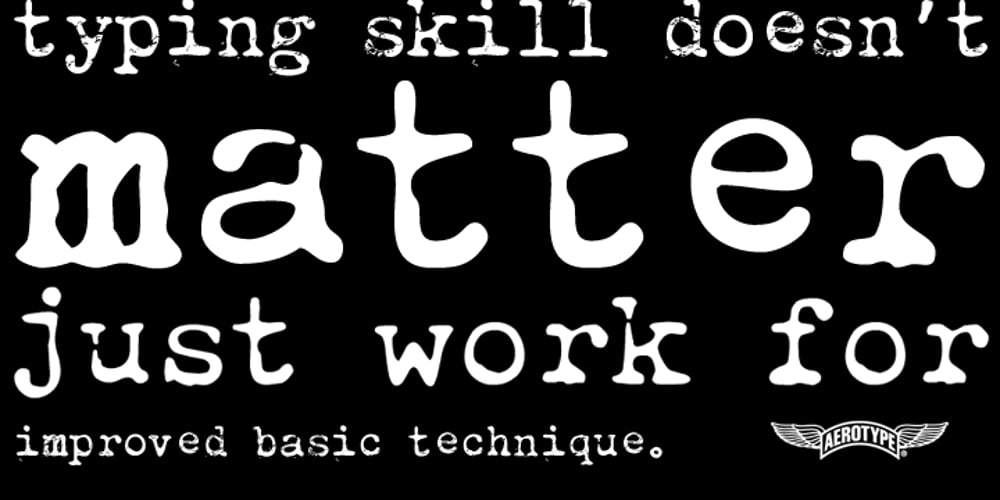
Obsolete
Obsolete font
Obsolete Font Family was designed by Stephen Miggas and published by Aerotype. Obsolete contains 12 styles and family package options. The Obsolete family has Regular, Light, Bold each with an associated Alternate version. The Opentype versions of the Obsolete Alternate family members have contextual ligatures that substitute a uniquely distressed pair of characters when any lower case character is typed twice in a row, to eliminate unrealistic repetition. All have the classic typewriter punched-thru period (and a regular one).